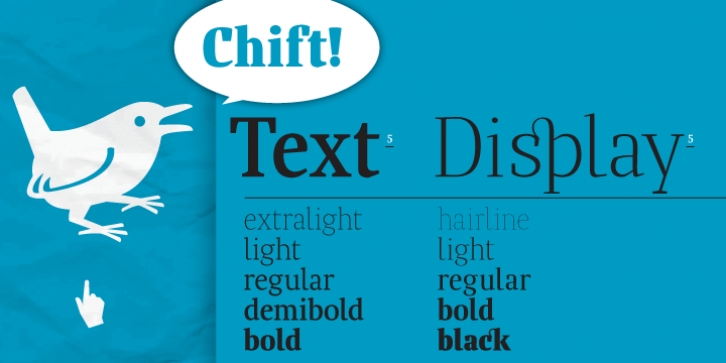
Chift is a quite narrow serif font for both body text and headlines in periodicals, where economy of space is needed. The type family consists of ten faces: five styles of low contrast for body text sizes and five styles of high contrast, including Hairline and Black, for display purposes.
One of the main features of the typeface is its professionally-designed Cyrillic, which won one of the special prizes at Modern Cyrillic competition (http://www.paratype.com/k2009/) in Text category.